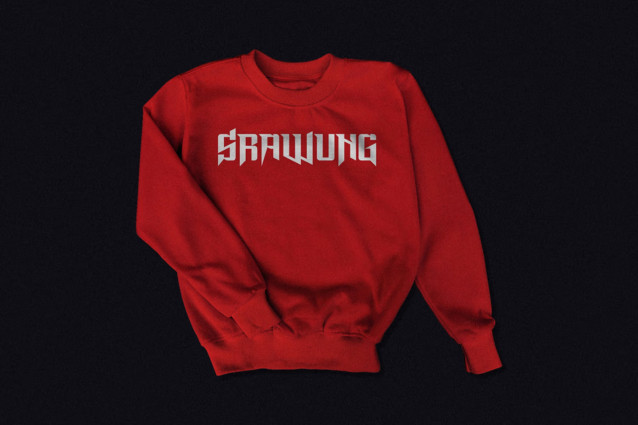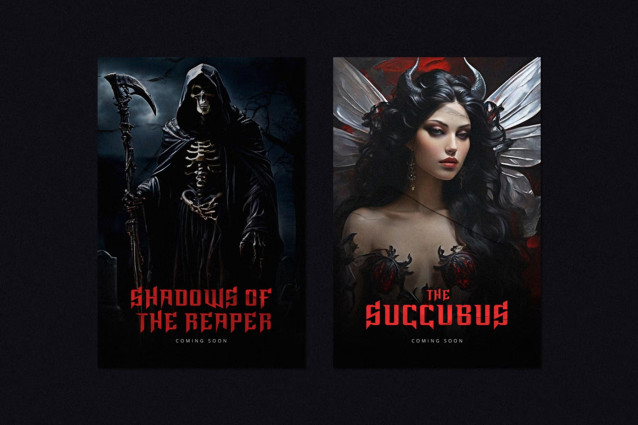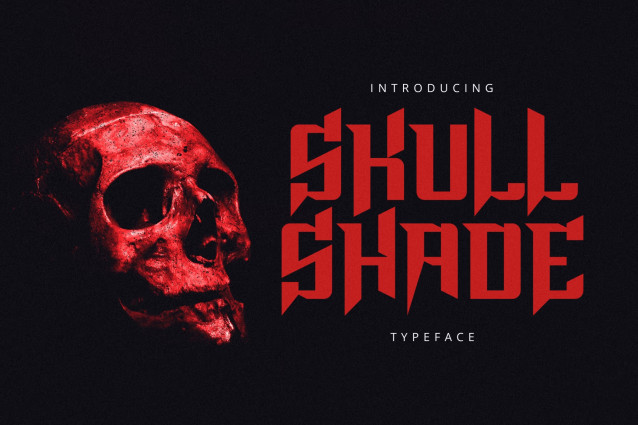
Skull Shade Typeface Font
Skull Shade Typeface
This is the latest Gothic font from us, very suitable for use in your work presentations such as blog design, modern design, web design, invitation cards, and others. please download and enjoy!